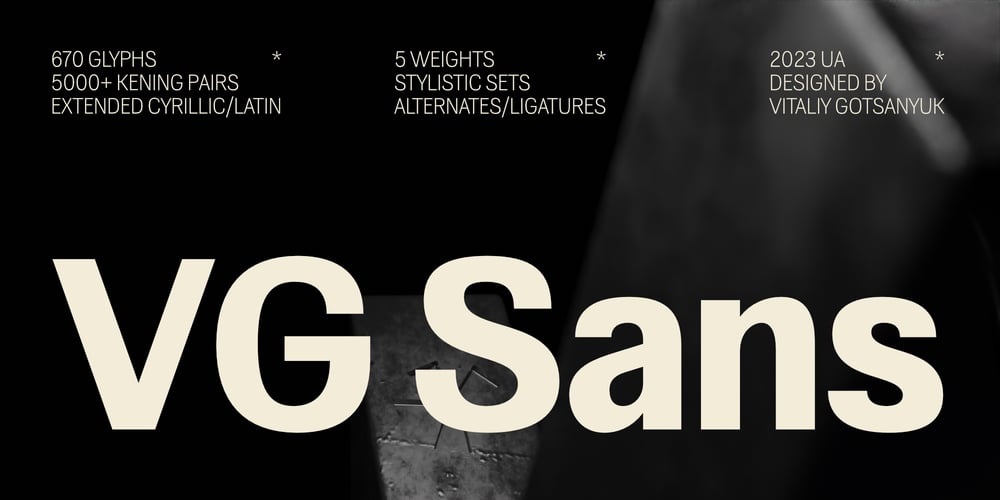
VG Sans
VG Sans font
VG Sans Font Family was designed by Vitalii Hotsaniuk and published by Vitaliy Gotsanyuk. VG Sans contains 6 styles and family package options. VG Sans is a distinctive grotesque font that preserves the features of old grotesques while incorporating new conceptual solutions. Working on the font, its shape has been completely transformed, corrected, and the glyph set has been expanded. The font has a light contrast that increases with weight. VG Sans includes 5 weights, 670 glyphs, an extended Cyrillic/Latin character set, multiple stylistic sets, ligatures, numeral sets, and more.